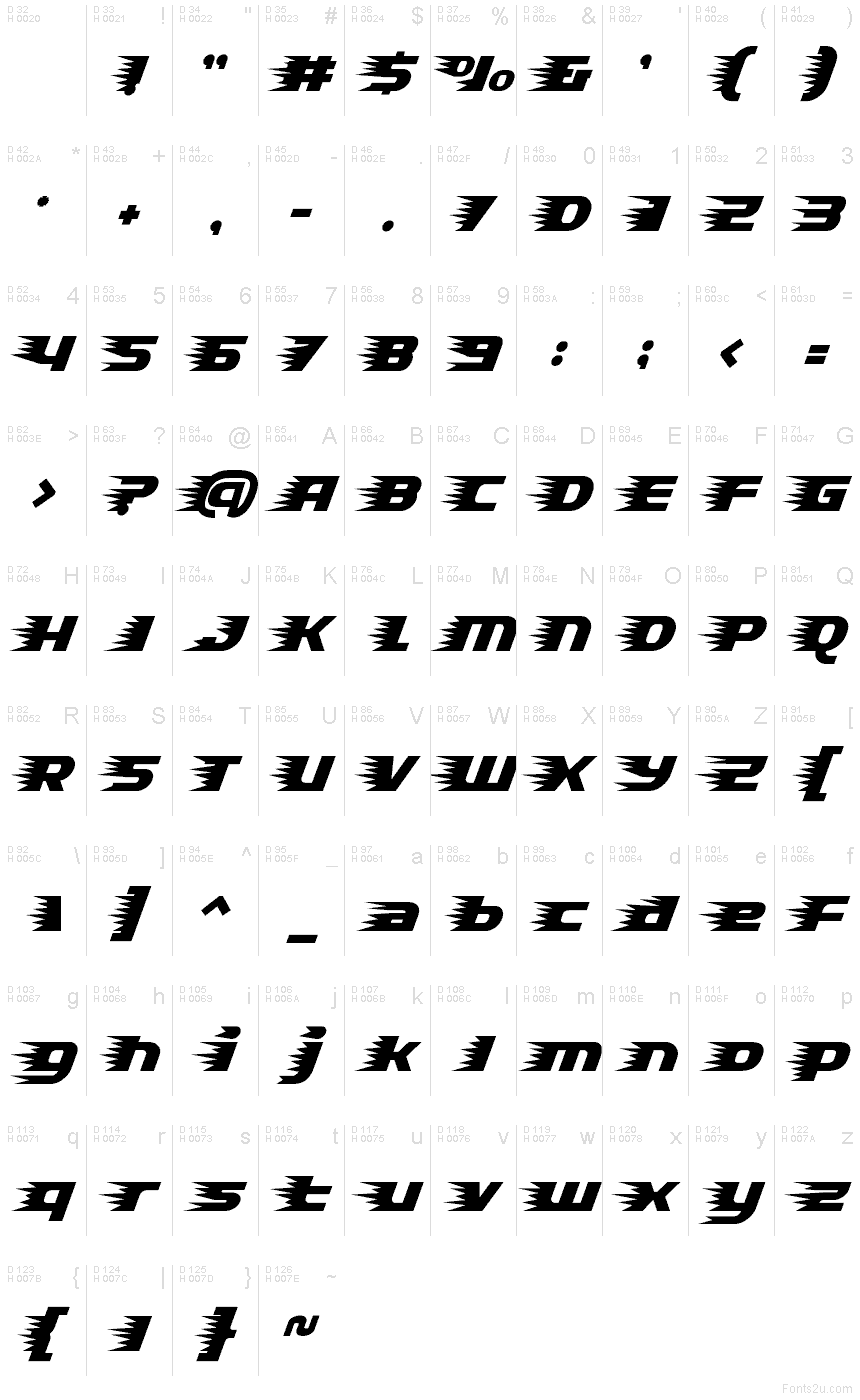
Rapido Racers Four
Rapido Racers Four font by PutraCetol Studio is bold, aggressive, and distinctly futuristic. This free techno display font has an unmistakable expanded presence with abrupt breaks and unusual cutouts. Each letter of this retro-inspired design has sharp and pointy strokes which creates a high-energy sporty vibe.
Start strong when designing posters, flyers, or banners for sport-related projects all while using this font. Create unique titles for video games as well as mobile apps. Websites, blogs, logos, product labels, t-shirts, made-ups are possible too.